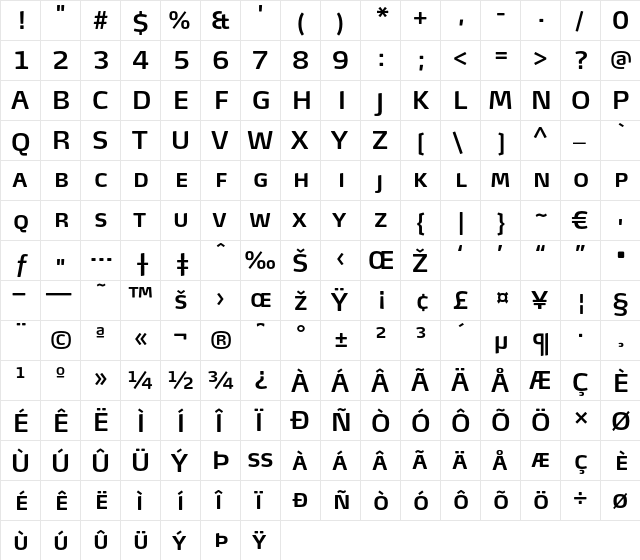
MaxTF-SemiBoldSC Regular
Design Context for MaxTF-SemiBoldSC Typeface
MaxTF-SemiBoldSC takes a measured approach to typography — its balanced proportions and neutral character make it a reliable workhorse for both digital and print work. The heavy weight commands attention and anchors typographic hierarchies.